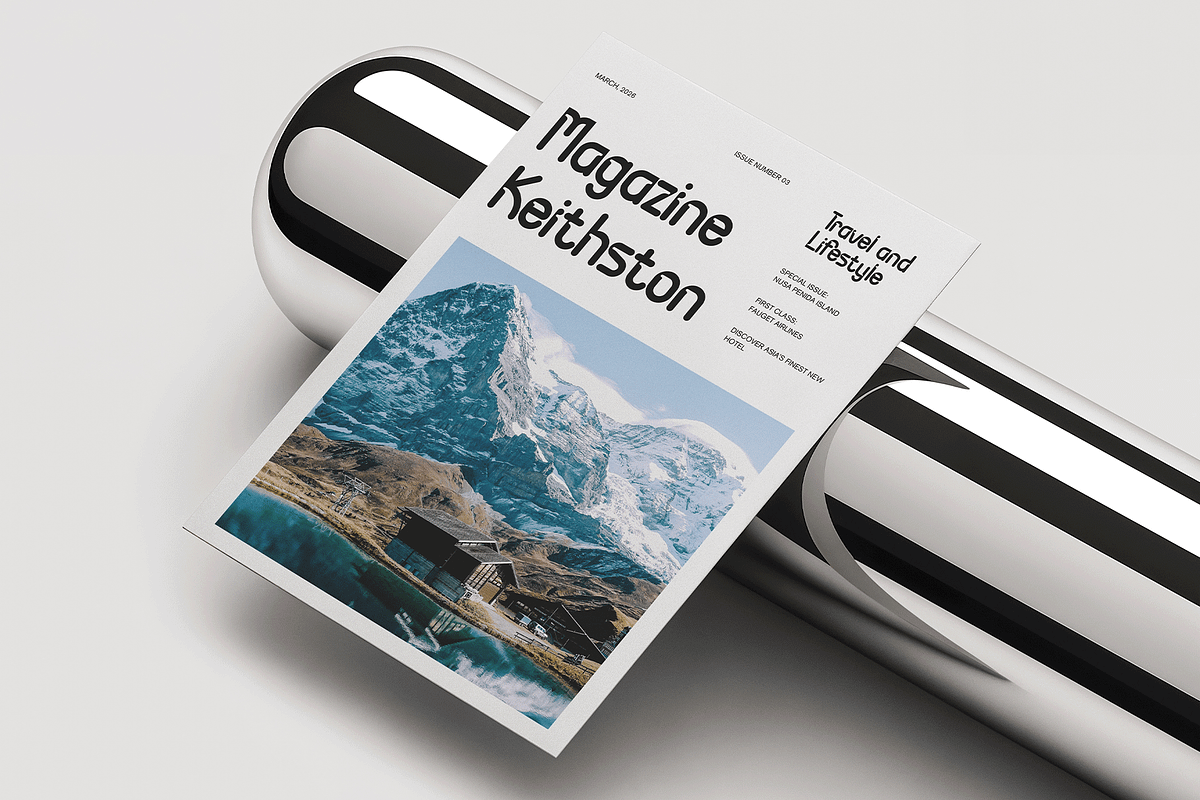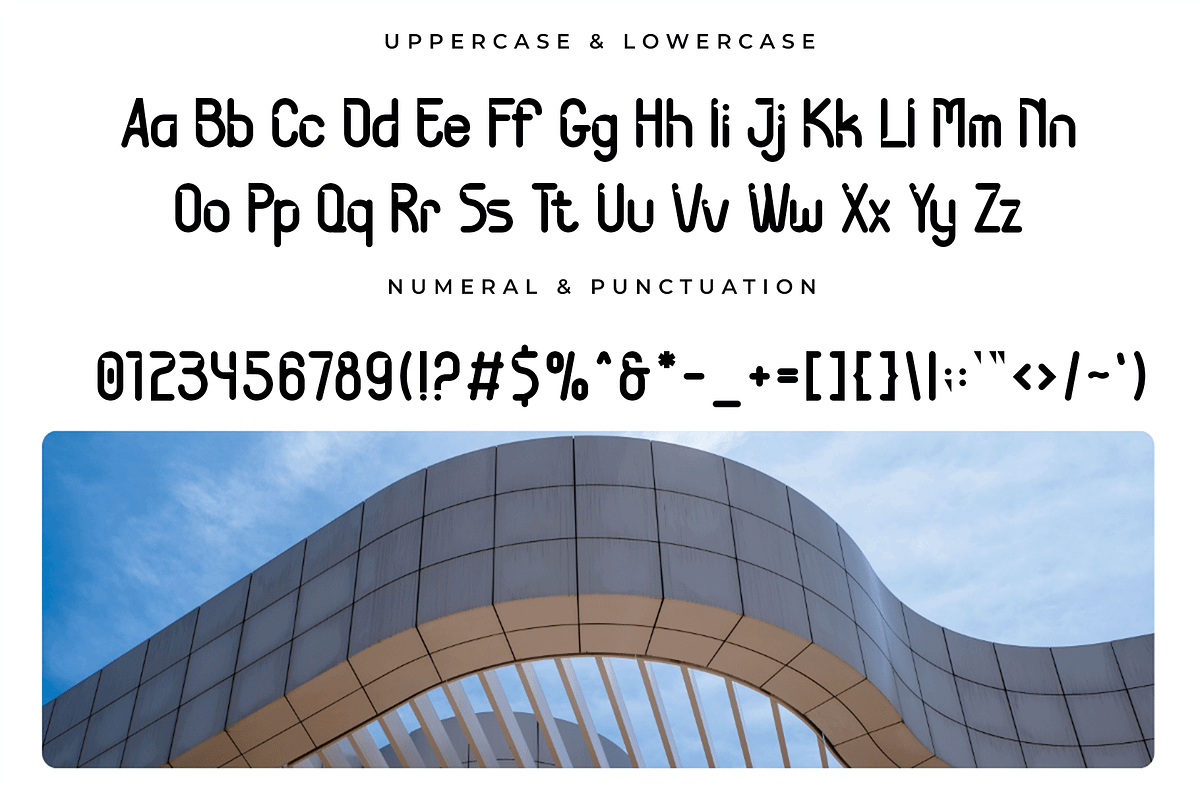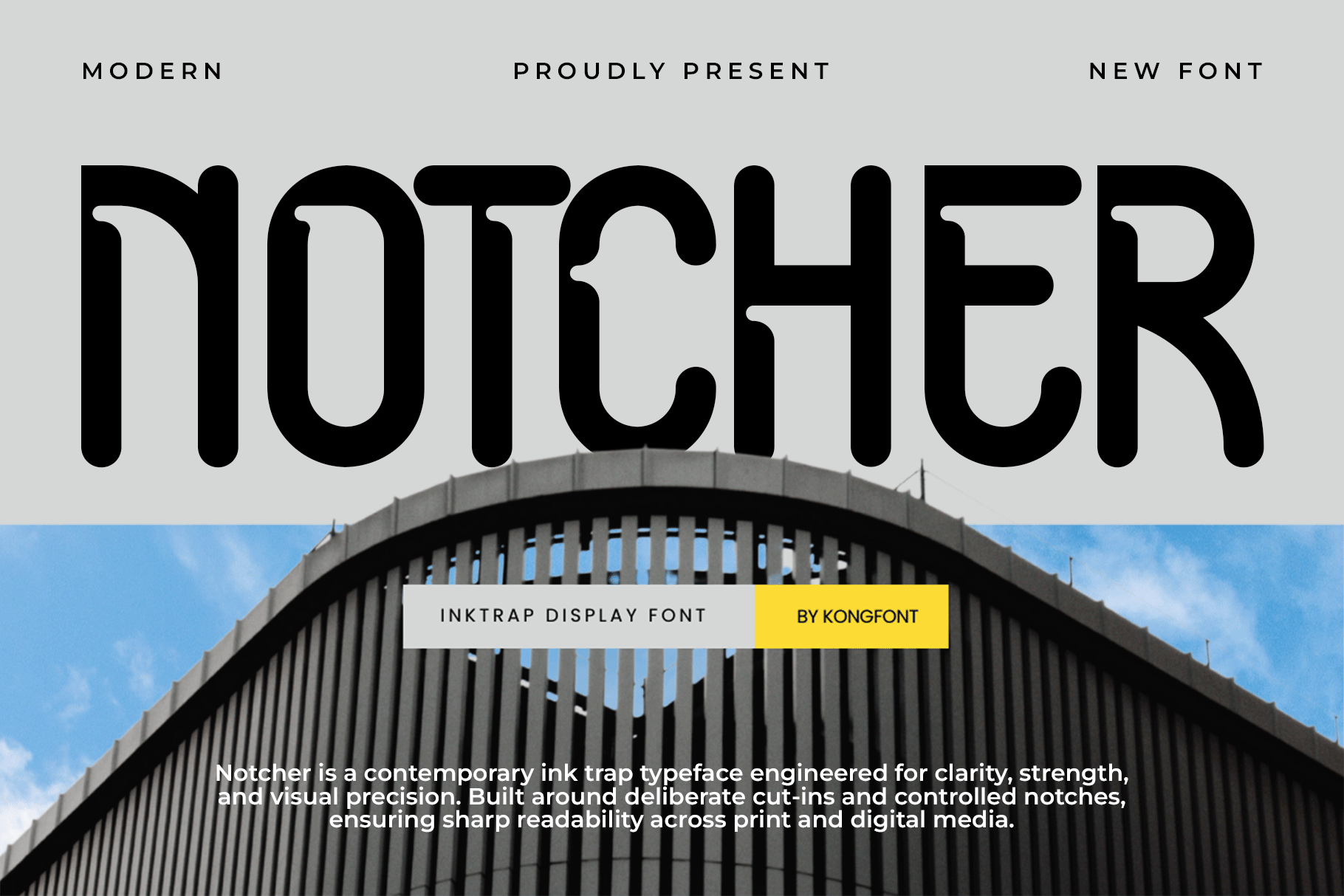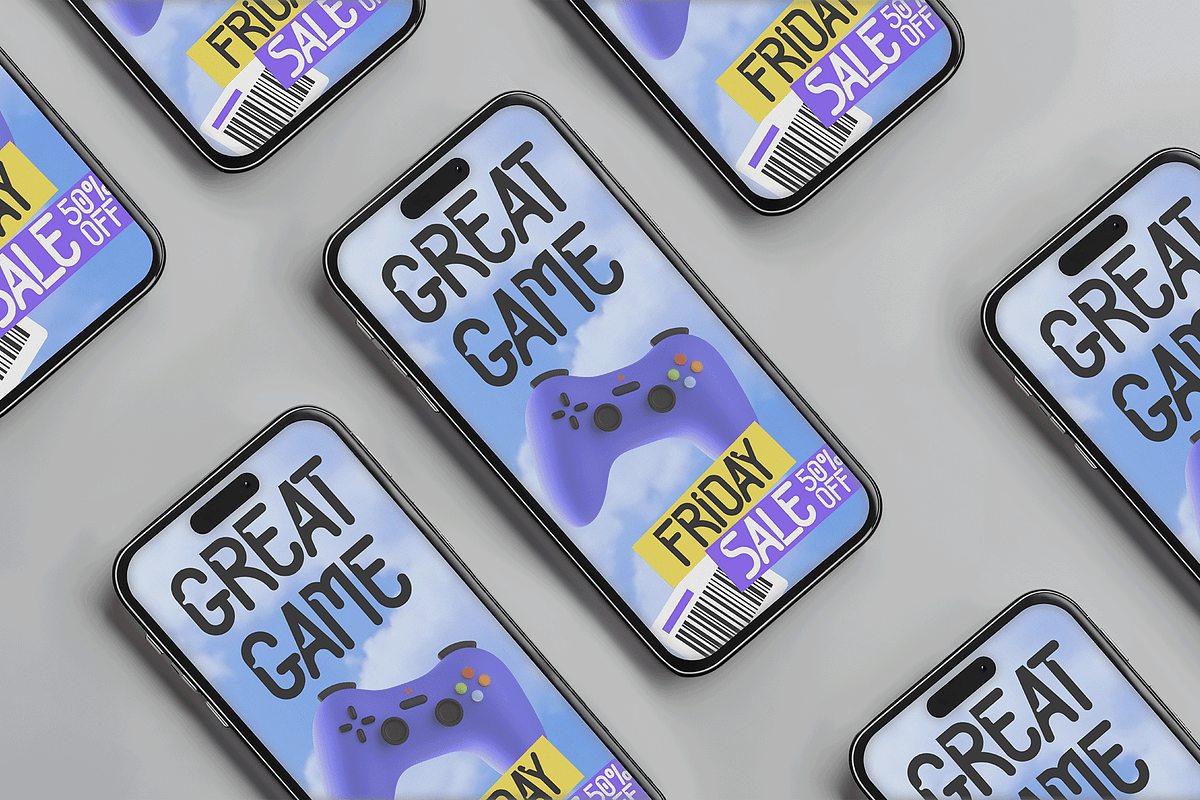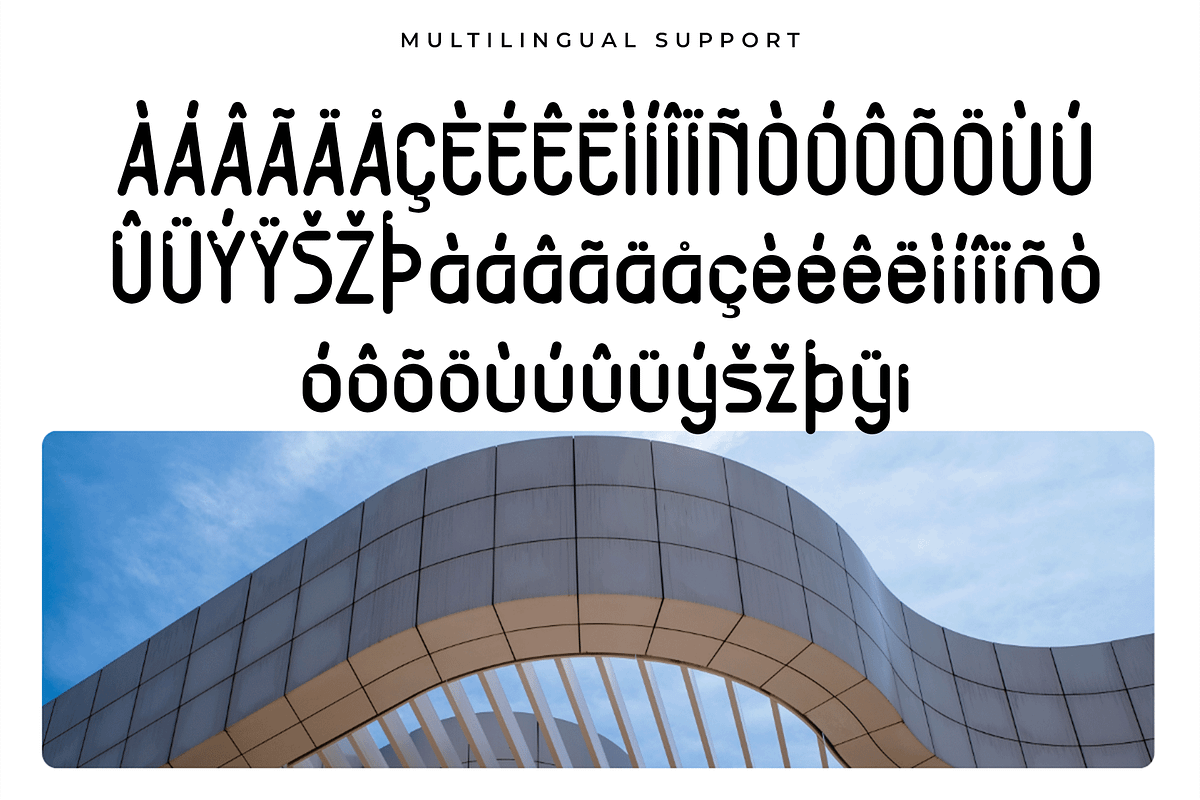
Notcher - Inktrap Display Font
Introducing Notcher, an inktrap display font designed to combine bold modern aesthetics with functional typographic engineering. Featuring strategically placed notches and ink traps, Notcher improves legibility and clarity, especially in large scale display use and printing conditions where ink spread can be a concern.
Notcher includes uppercase and lowercase letters, numerals, punctuation, and multilingual support, offering flexibility for creative professionals who demand both style and performance. Whether you’re crafting cutting edge branding, tech forward visuals, or bold editorial layouts, Notcher brings smart design and striking impact into every composition.